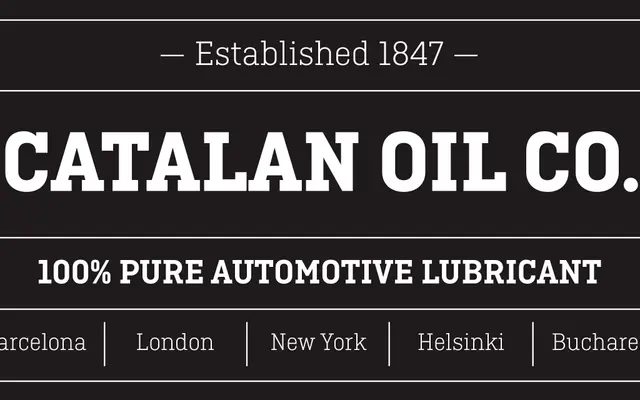
Ciutadella Slab
A slab serif companion to Ciutadella, reworked for text use with alternate characters promoted to defaults for better readability at intermediate sizes.
Cittadella Slab extends the Ciutadella family with a slab serif cut suited to magazines, brochures and branding at text sizes. The former alternate 'a', 't' and '&' characters become the defaults here, shifting the register from display to text. Ten styles run across five weights from Light to Bold, each with a matching italic.
A slab serif companion to the Ciutadella sans-serif family, sharing its geometric construction while adding bracketed slab serifs suited to text use at intermediate sizes.